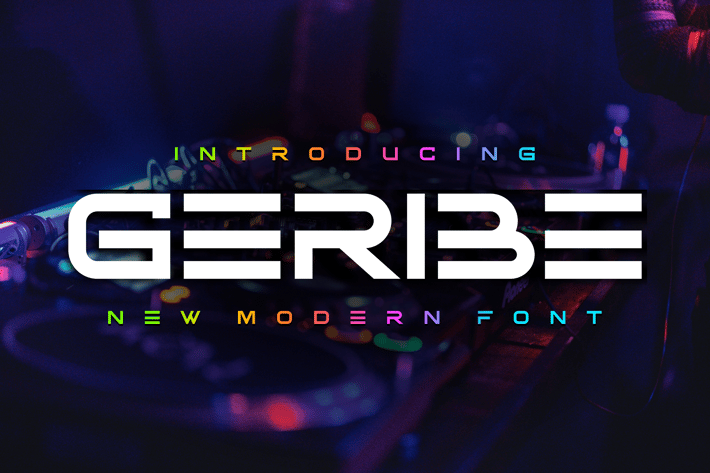
Geribe Font
Introducing our new product Geribe Font - Modern Font
Geribe Font - Modern Font is a bold and authentic display font. The font is suitable for any branding project like logo, t-shirt printing, esport, and many more. outstanding in a wide range of contexts.